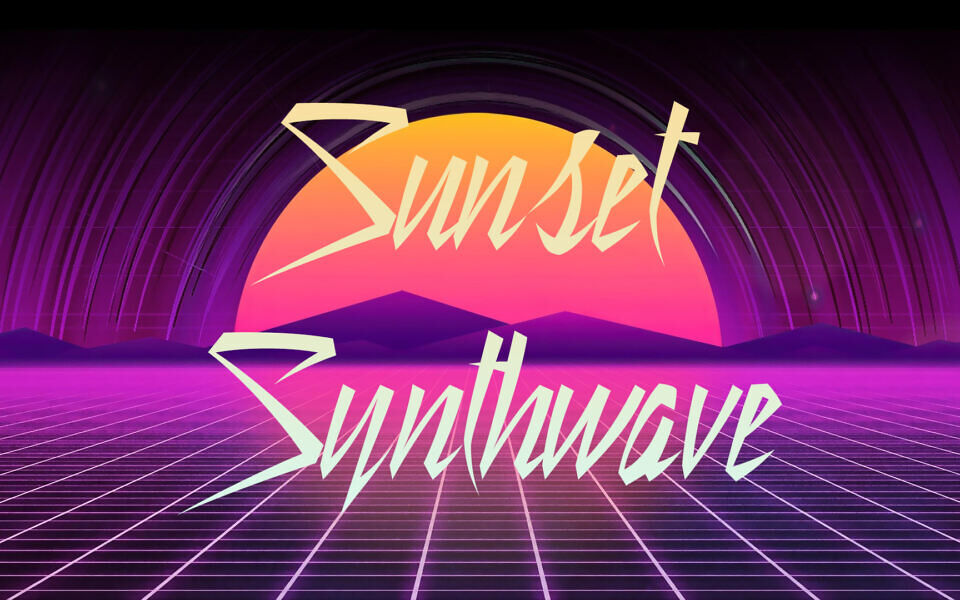
Still Time Font
Still Time is a slash script typeface inspired by the hand-lettering on Prince and the Revolution’s Purple Rain album cover. It appears more angular and aggressive than the original design.
Still Time became popular in the 2010s as a visual shorthand for vaporwave and general 1980s nostalgia.